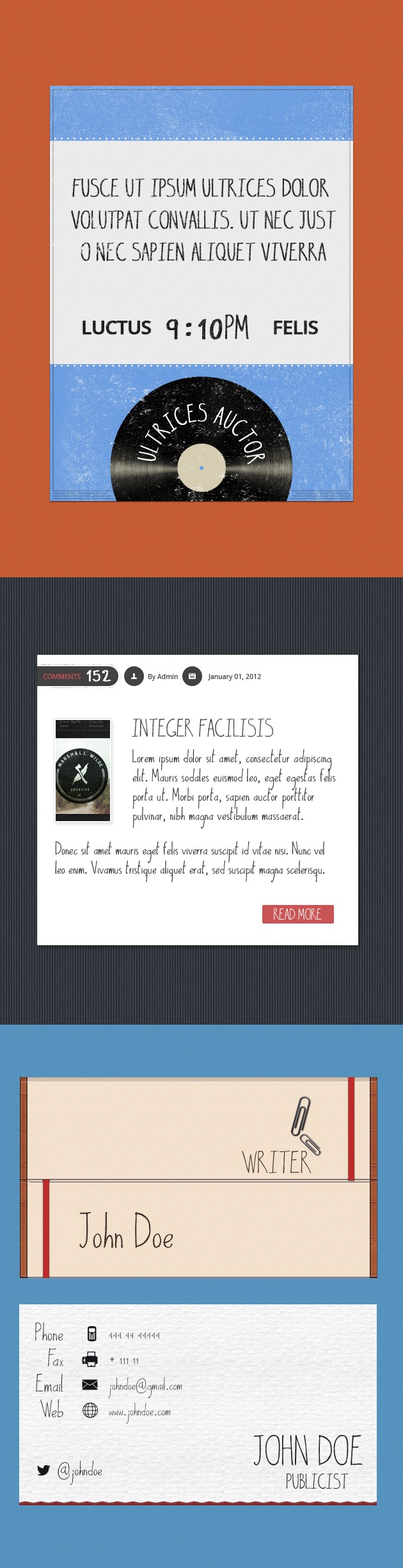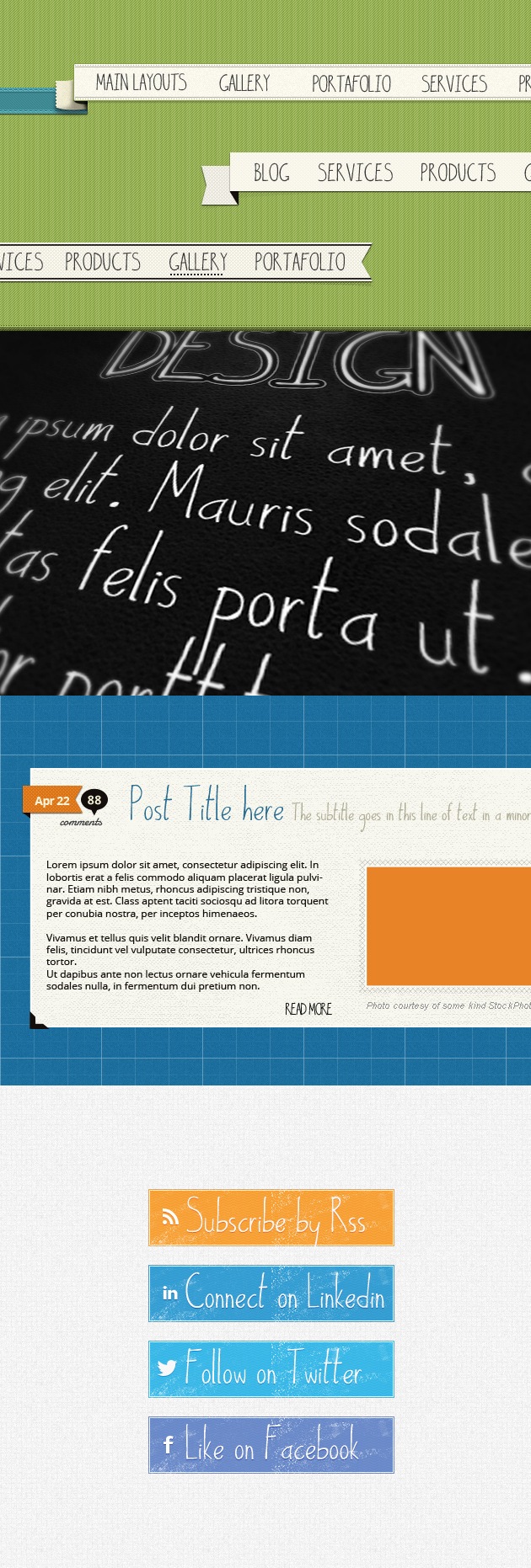
Shock Handwritten Font: A Beautiful & Exclusive Font
Here we have a joyful font that intends to look like handwriting. Perfect for informal designs and casual situations. Have fun and we'll see you soon!